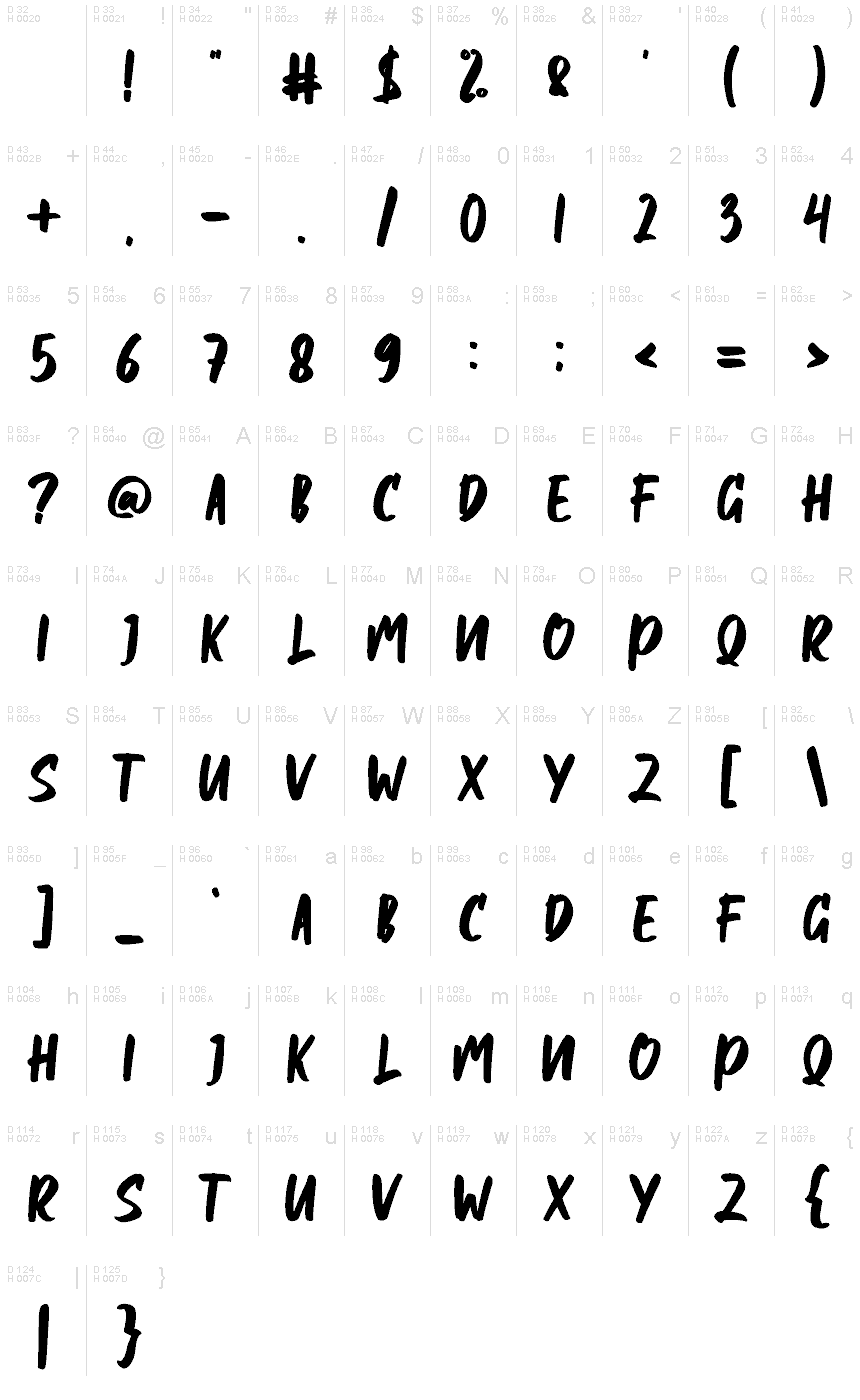
REFILAS
Refilas font by Skiiller Studio is a condensed, bold, and modern brush typeface. Energetic and expressive, it features a casual tone with handwritten imprecision. All of these elements give it the perfect eye-catching look suitable for various uses.